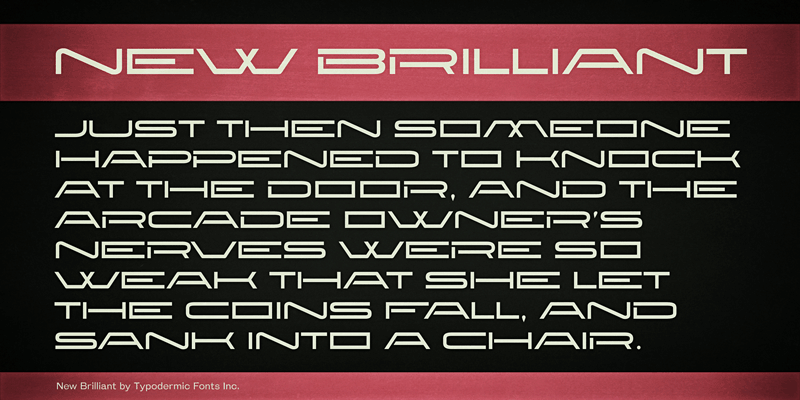
Preview and download New Brilliant Font. Created by Typodermic Fonts in Techno Sci-fi styles with 100% Free license.
New Brilliant is a high-tech headline screamer. This font includes a license that allows free commercial use: sometimes referred to as a desktop license. This allows you to install the font on a computer and use it to create posters, web graphics, game graphics, t-shirts, videos, signs, logos and more. Read the license agreement for details. If you'd like to embed this font in an app, ebook, on the web or anything that's not covered by the desktop license agreement, visit the link below. You'll find distributors who offer different types of licenses or you can contact me for help. http://typodermicfonts.com/new-brilliant/ |